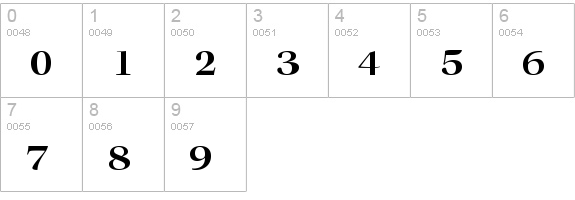
Kepler Std Semibold Extended Subhead is a sub-bold, structured, extended-width variant in the Kepler typeface family \xE2\x80\x94 well suited to sub-headlines and emphasised passages.
Introducing Kepler Std Semibold Extended Subhead, a font that combines elegance, versatility, and readability to enhance any design project. This font exudes a sense of sophistication and professionalism, making it perfect for a wide range of applications. Featuring a semi-bold weight and extended subhead style, Kepler Std Semibold Extended Subhead stands out with its bold presence and commanding presence on the page. Its refined letterforms ensure legibility even at smaller sizes, making it a reliable choice for subheadings, titles, and captions. The clean lines and well-defined curves of Kepler Std Semibold Extended Subhead lend a contemporary touch to any design, while its slightly extended proportions add a sense of modernity and uniqueness. The font's versatility shines through in both print and digital mediums, making it an ideal choice for branding, advertising, editorial design, web design, and more. But what sets Kepler Std Semibold Extended Subhead apart is that it is freely available to download at FontsMarket.com. This means that designers, creatives, and enthusiasts can access this exceptional font without any cost. With its accessibility and high-quality design, Kepler Std Semibold Extended Subhead opens up a world of possibilities for all your creative endeavors. So whether you're working on a corporate identity, a magazine layout, a website, or any other project that demands a touch of sophistication, look no further than Kepler Std Semibold Extended Subhead. Download it for free at FontsMarket.com and elevate your designs to new heights.